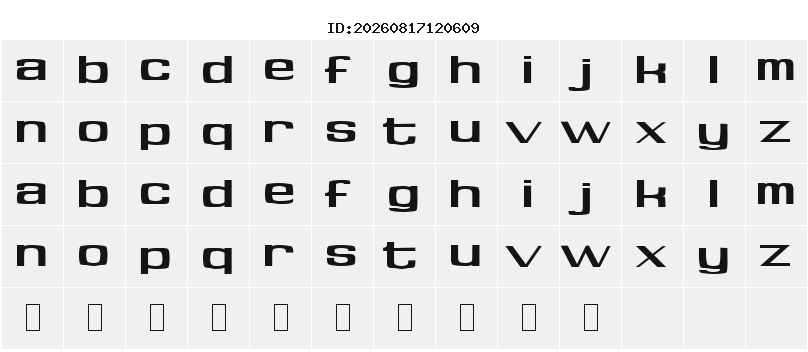
Soft Hits Preview
• Font Name: Soft Hits
• Full Font Name: Soft Hits
About Soft Hits.ttf
Soft Hits.ttf is a modern, elegant sans-serif font designed for ultimate readability and visual harmony. Perfect for branding, headlines, web design, and print materials.